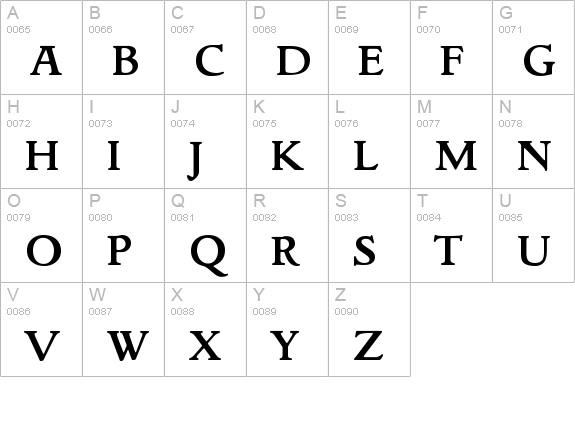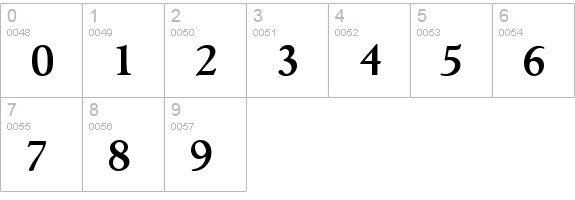
Goudita SF Bold is a strong, high-contrast variant in the Goudita typeface family \xE2\x80\x94 well suited to headlines, attention-grabbing titles, and strong calls-to-action.
Goudita SF Bold font exudes a sense of modern sophistication and bold elegance that is sure to captivate and impress. With its sleek and stylish design, this typeface is perfect for creating eye-catching headings, branding materials, and other design projects that require a touch of sophistication. The strong and distinctive features of Goudita SF Bold make it stand out from the crowd, while its clean lines and sharp angles give it a contemporary edge. Whether you're looking to make a statement with your typography or simply want to add a touch of class to your designs, this font is sure to deliver. And the best part? Goudita SF Bold is available for free download at FontsMarket.com, making it accessible to designers and creatives of all levels. So why wait? Elevate your designs with the timeless elegance of Goudita SF Bold today.